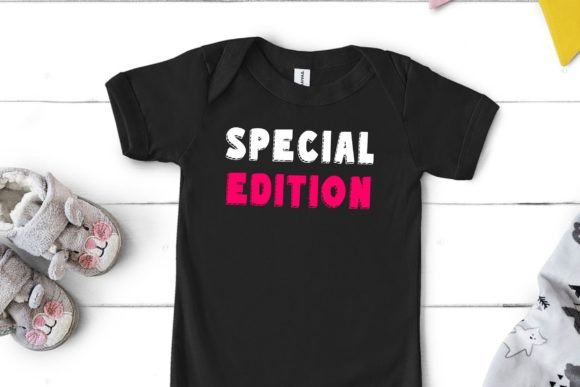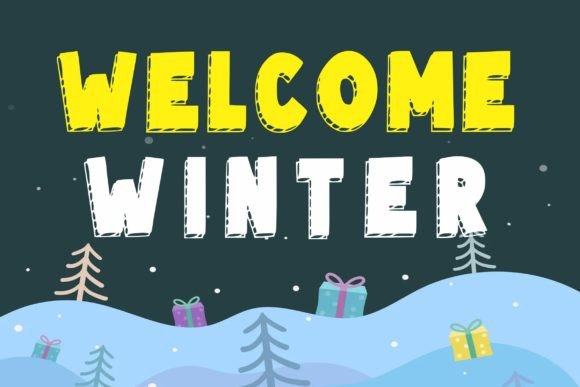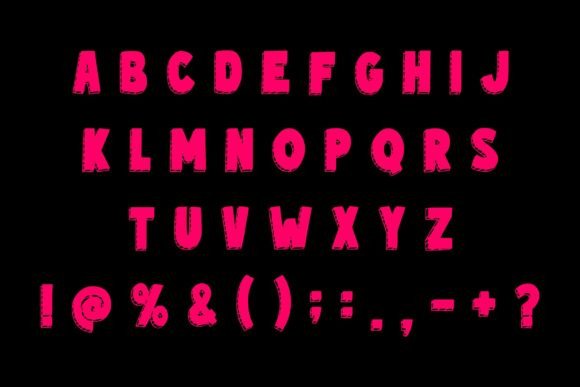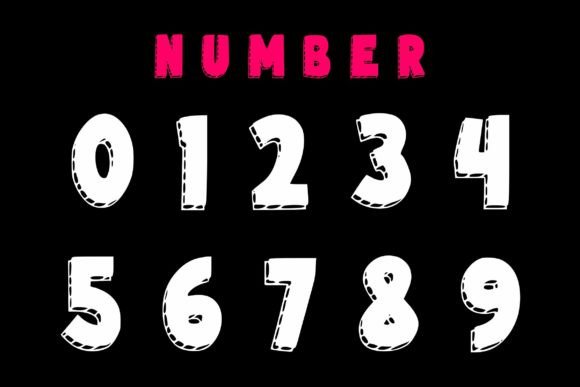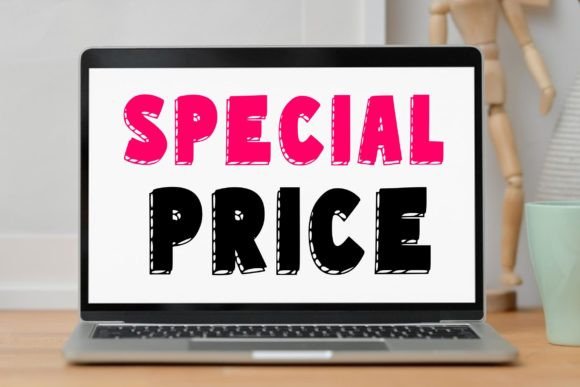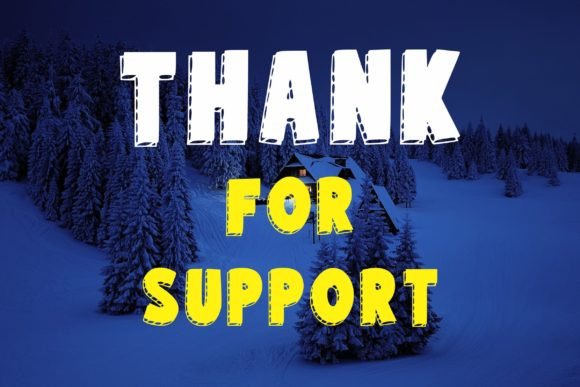
Unleashing Creativity with Comic Session Font
Remember that moment when you sat down with a blank piece of paper and a pencil, waiting for inspiration to strike? You started doodling, and before you knew it, a character came to life. The world of design is full of moments like these, where creativity flows freely. For designers who want to bring a touch of whimsy and playfulness to their work, there’s a font that’s sure to spark imagination – the Comic Session Font.
Perfect for designing everything from t-shirts to wedding invitations, the Comic Session Font is a versatile and fun tool that adds a touch of childlike wonder to any project. Whether you’re looking to create a quirky logo or a heartfelt quote, this font is sure to bring a smile to your face and a twinkle to your design. For designers, the Comic Session Font is a valuable asset that can help bring a project to life in a way that’s both unique and engaging.
Comic Session Font Key Features
- Font Style: Comic Session Font is a playful, handwritten font designed for comic books, cartoons, and other creative projects.
- Unique Characteristics: Features a distressed, hand-drawn look with varying line widths and irregularities, giving it a unique, artistic feel.
Comic Session Font Review
At first glance, the Comic Session Font caught my attention with its quirky, hand-drawn feel ✨. It’s perfect for adding a touch of whimsy to your designs, especially when targeting a younger audience. The font’s bold lines and playful flourishes make it an excellent choice for comic books, children’s books, and even posters.
However, the font also has some limitations ⚠️. One of the main issues is its lack of legibility at smaller font sizes. The characters can become distorted and difficult to read, which may impact the overall user experience. Additionally, the font’s bold nature can make it overwhelming if used excessively.
Key Features:
- Quirky, hand-drawn feel ✨
- Perfect for comic books, children’s books, and posters
- Bold lines and playful flourishes
- Limited legibility at smaller font sizes ⚠️
- Can become overwhelming if used excessively
Overall, I think the Comic Session Font is a great addition to any designer’s toolkit, but it should be used judiciously to avoid overwhelming the user. With careful selection and application, this font can add a unique touch to your designs.
Comic Session Font Practical Application Guide
The Comic Session Font is ideal for creating playful, informal designs. It’s commonly used in children’s books, comics, and advertisements.
Some tips for getting the most out of this font include:
- Pair it with bold, colorful graphics for a playful look.
- Use it in combination with other informal fonts for a unique design.
- Experiment with different font sizes and styles to add visual interest.
Alternatives to Comic Session Font
Great Vibes is a beautiful, handwritten font that works well for titles, headings, and short paragraphs. It’s a great choice when you want to add a touch of elegance and sophistication to your design. Compared to Comic Session Font, Great Vibes has a more refined and luxurious feel, making it suitable for high-end branding and marketing materials.
Alex Brush is a elegant script font that’s perfect for adding a personal touch to your design. It’s great for use in titles, headings, and short paragraphs where a more refined and sophisticated look is desired. Compared to Comic Session Font, Alex Brush has a more polished and refined feel, making it suitable for upscale branding and marketing materials.